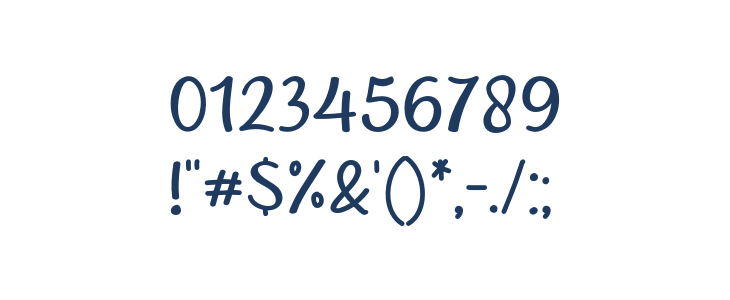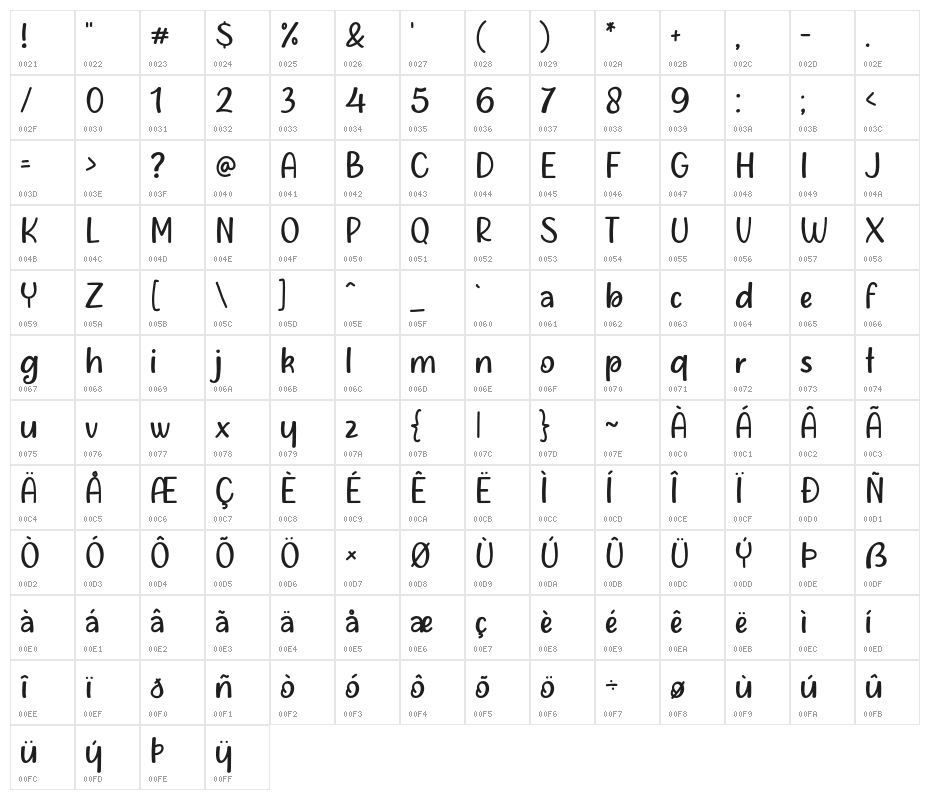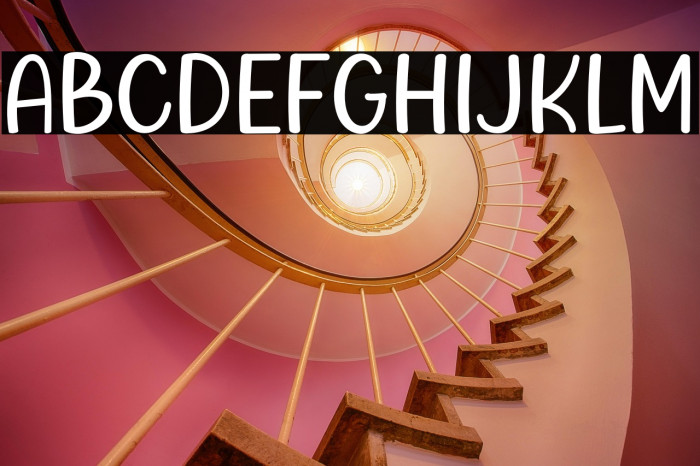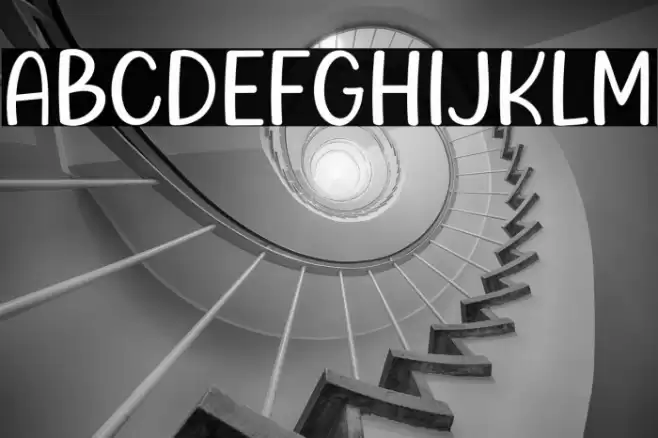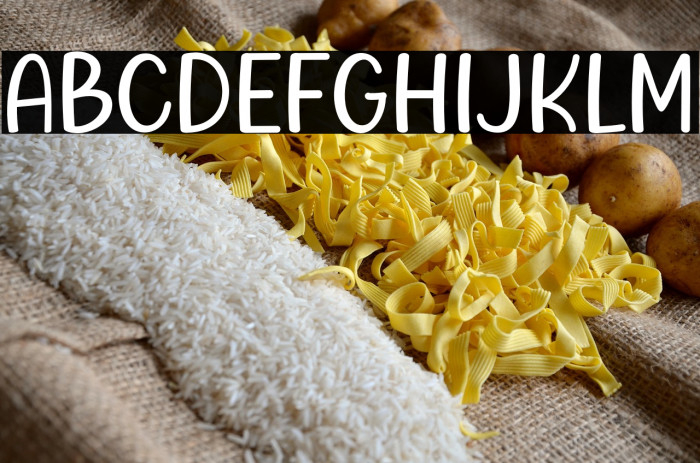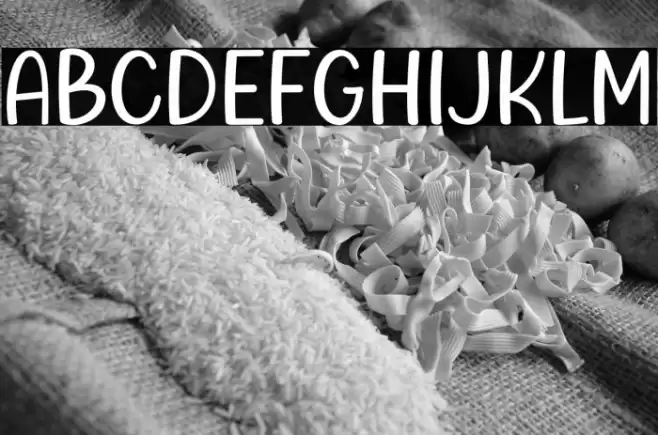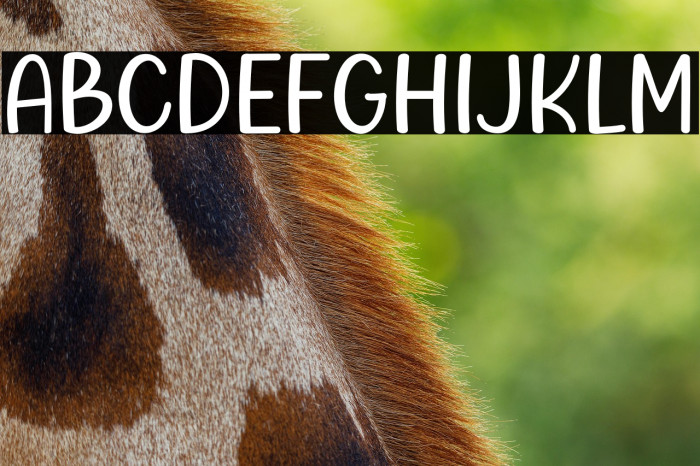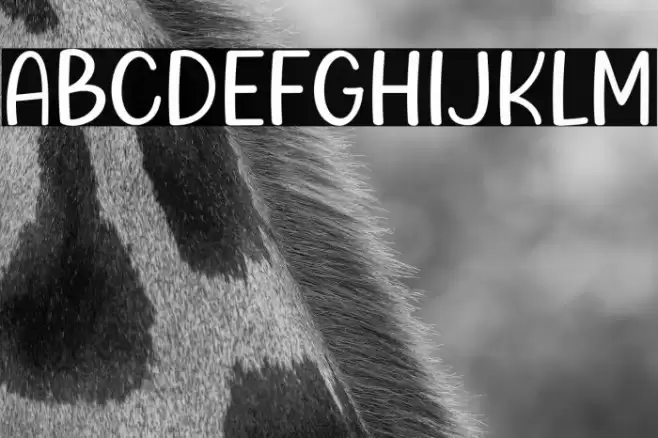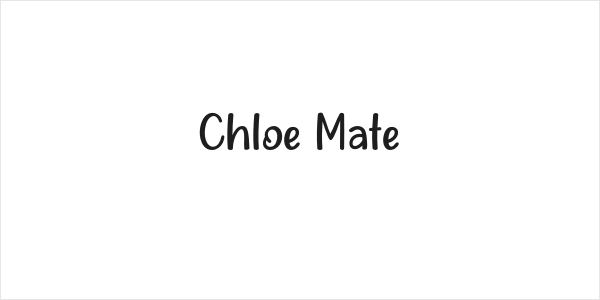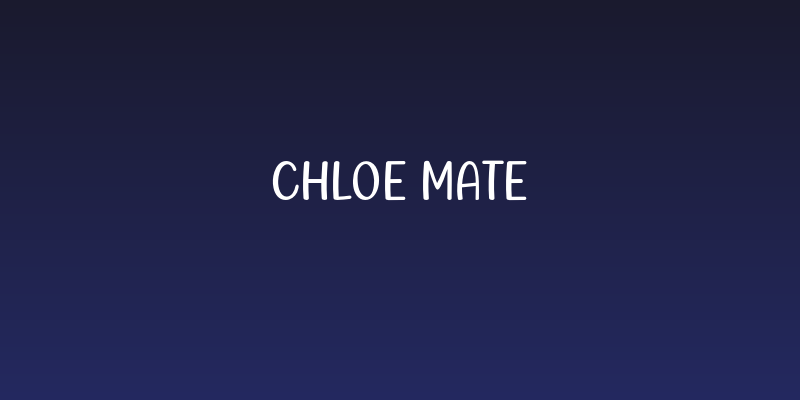
Chloe Mate Font
Chloe Mate Description
This font features a playful and casual handwritten style, characterized by its smooth, rounded edges and consistent stroke width. The letters are slightly elongated, giving it a friendly and approachable appearance. The uppercase and lowercase letters maintain a uniform style, with the lowercase letters showing a slight slant that adds to the informal feel. The numerals and special characters are designed to match the overall aesthetic, ensuring a cohesive look across all text. This font is versatile and can be used in various creative projects where a personal touch is desired.